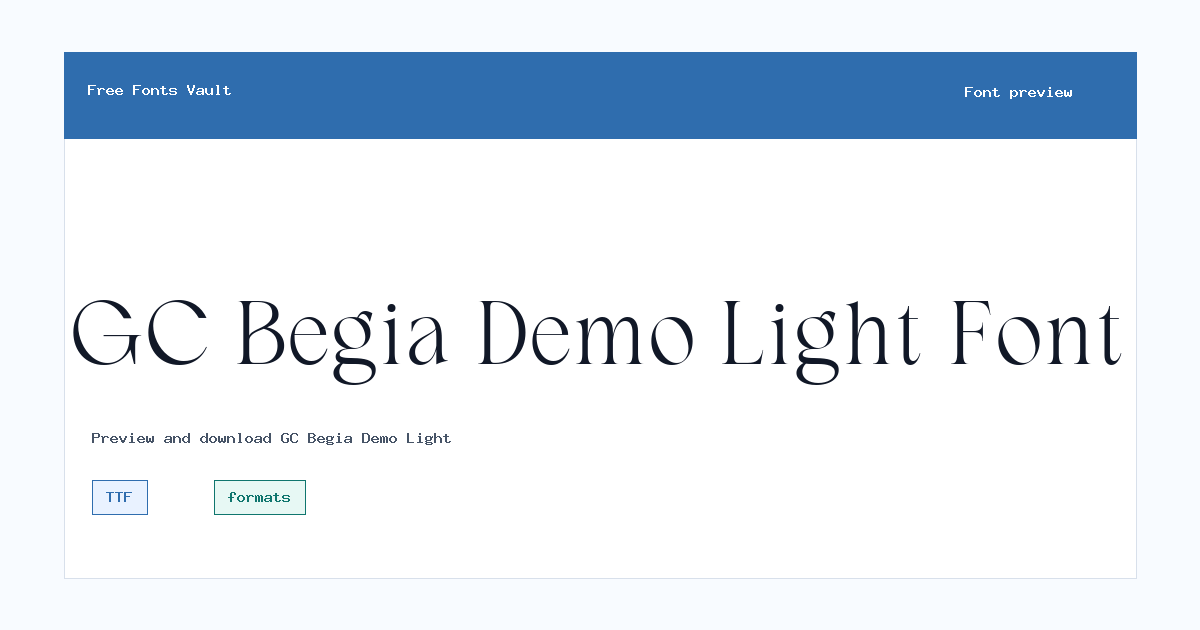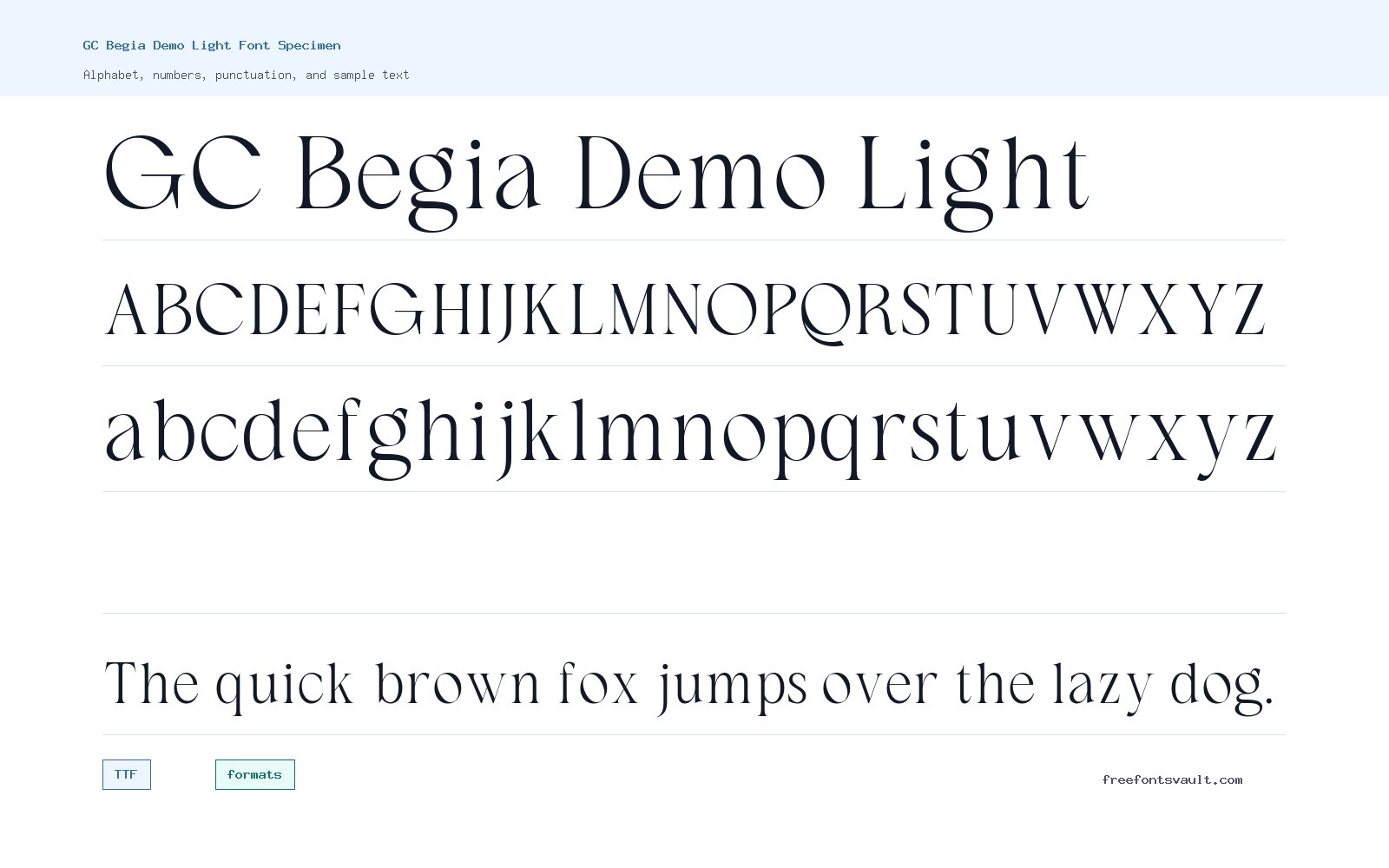
GC Begia Demo Light
- Designer Firo of Glyphonic
GC Begia Demo Light is a light display serif font from the GC Begia Demo family. Its thin weight, wide feel, and polished serif shapes make it useful for titles, fashion-style graphics, magazine-inspired layouts, and logo mockups.
About GC Begia Demo Light
GC Begia Demo Light works best when the text has room to breathe. Public font listings place it in serif, fashion, wide, display, and elegant categories, which fits its role as a decorative headline face rather than a long-reading text font. The Light style keeps the strokes refined, so it can look clean and stylish in large words, short phrases, and brand-style samples.
Use the preview box to test your exact wording before downloading. Thin display serifs can lose detail at small sizes, especially on low-resolution screens or busy backgrounds. Try it in uppercase titles, short lowercase names, packaging-style labels, invitations, social posts, or editorial cover text. For body copy, pair it with a simple sans serif or a calm text serif so GC Begia Demo Light can stay focused on the headline.
Because the style is delicate, GC Begia Demo Light is most effective when the surrounding layout is quiet. Leave room above and below the line, avoid heavy textures behind the text, and use the font as a refined accent rather than the only typeface on the page.
- Light display serif style with a wide, editorial feel
- Works best with generous spacing, clean backgrounds, and short editorial-style wording
- Fashion graphics, magazine-style titles, and editorial headers
- Logo concepts, packaging mockups, invitations, and social media title text
Public listings credit the font to Firo of Glyphonic, with Glyphonic shown as the foundry or maker connection.
Keep the font large enough for the thin details to show clearly. Use high contrast backgrounds, avoid dense paragraphs, and test spacing carefully if you use it for logos or short brand-style text. If the preview text has many thin strokes close together, increase the size or add letter spacing before judging the font. This keeps the light serif detail from looking cramped in finished graphics.
What type of font is GC Begia Demo Light?
It is a light display serif. Listings also place it in fashion, wide, elegant, and display-related categories.
Who designed GC Begia Demo Light?
Public listings credit Firo of Glyphonic, and Glyphonic is also shown as the related foundry or designer name.
What is GC Begia Demo Light best used for?
It is best for short, visible text such as titles, editorial graphics, fashion layouts, packaging mockups, invitations, and logo concepts. It is not ideal for long body text.